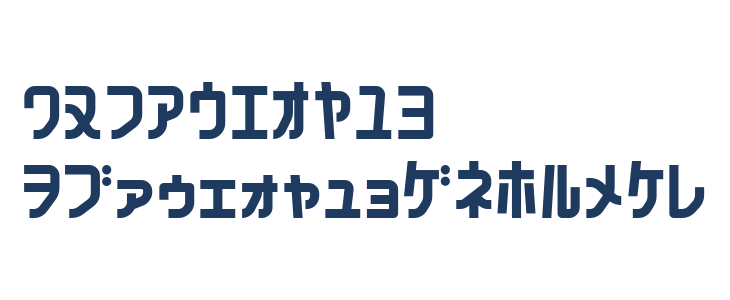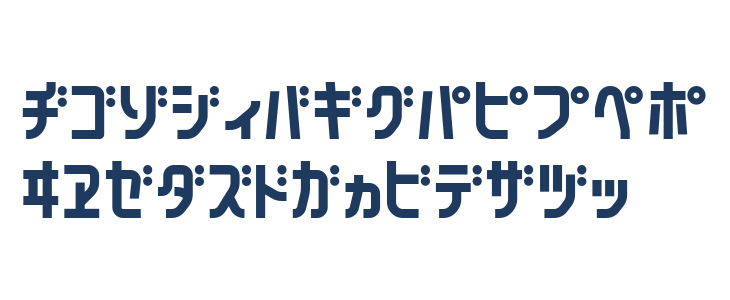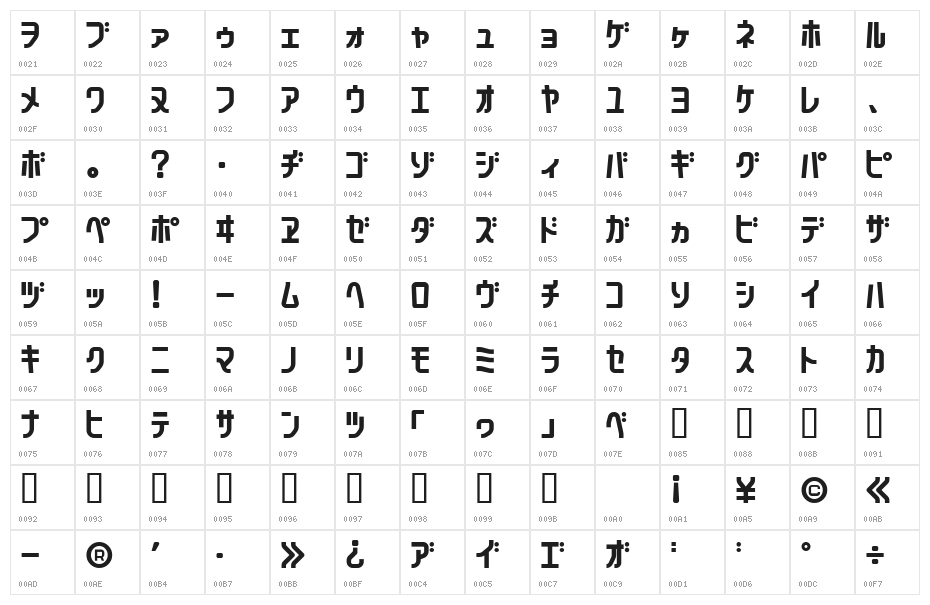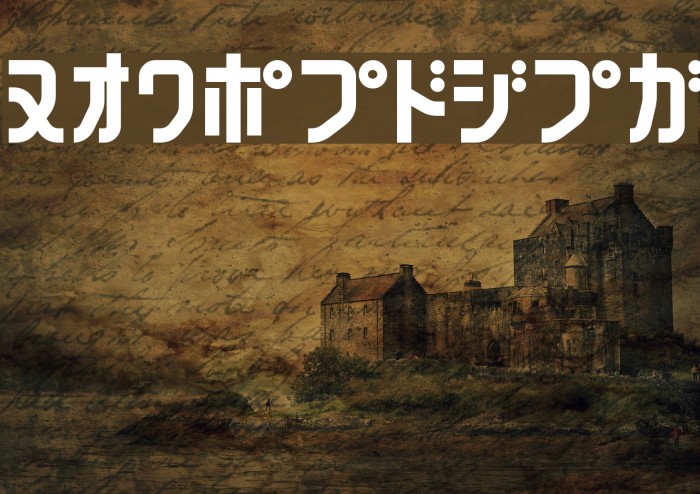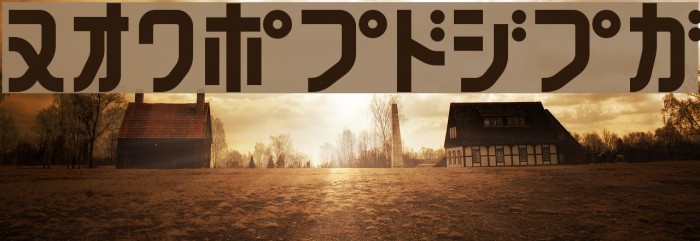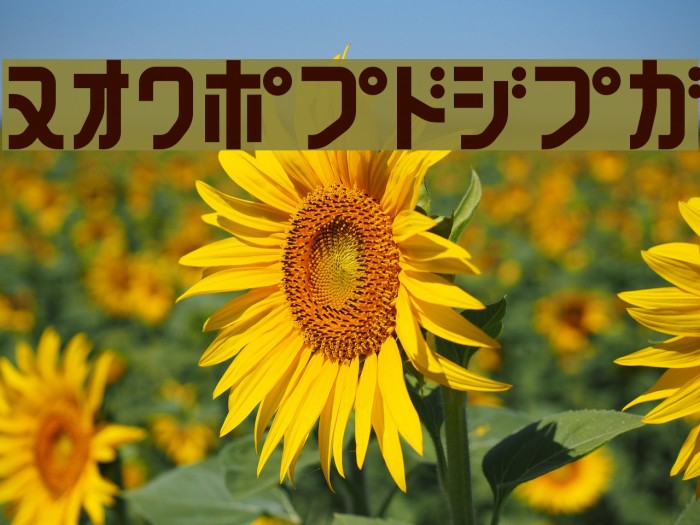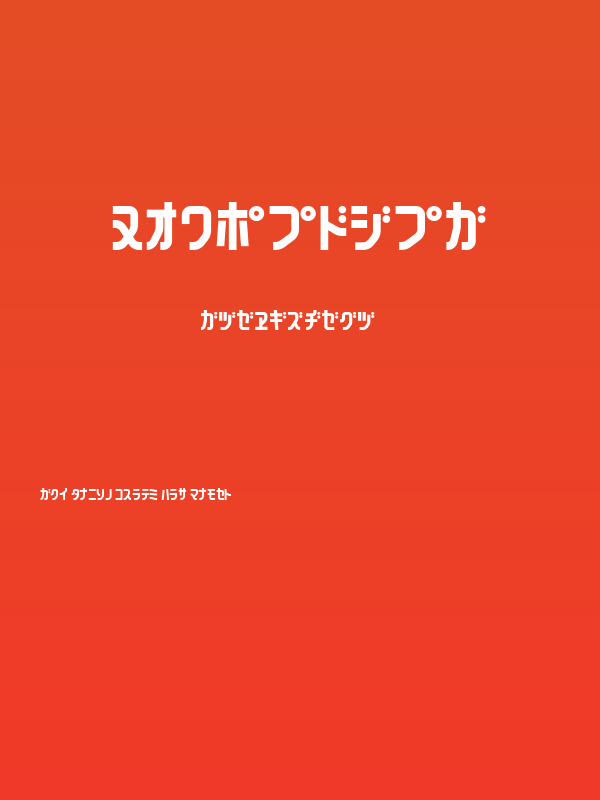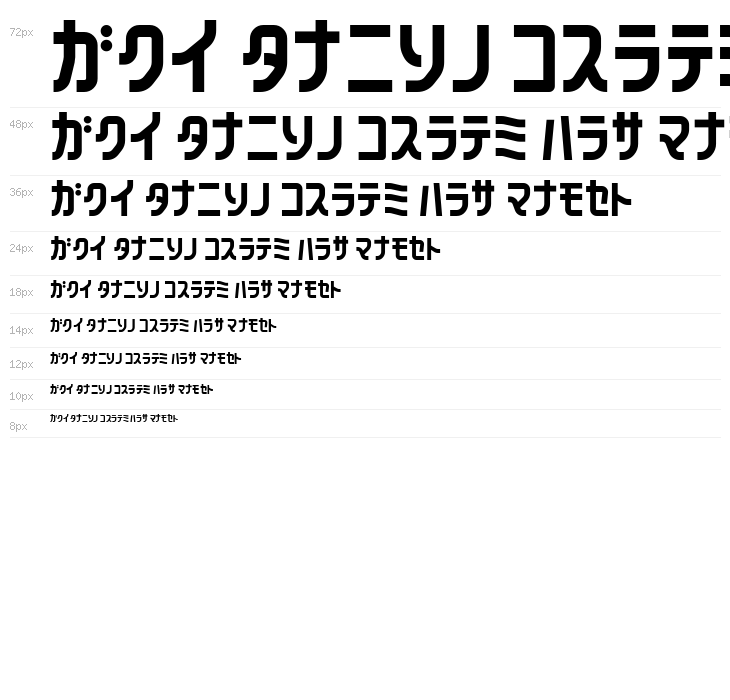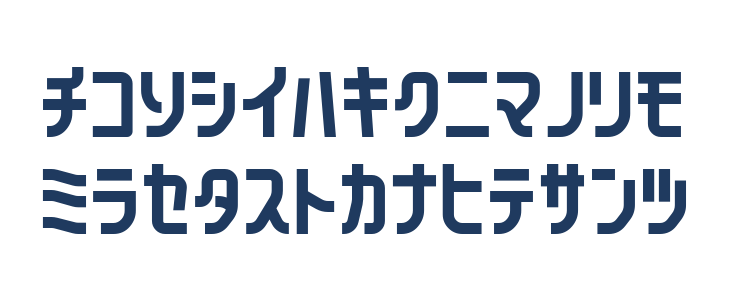
160MKSDKT Font
160MKSDKT Description
This font features bold, geometric characters with a strong presence, ideal for making impactful statements. The characters are uniformly thick, with a consistent stroke width that conveys a sense of stability and modernity. The design is clean and sans-serif, emphasizing clarity and readability. The overall appearance is structured and balanced, making it suitable for various design applications where a bold and confident look is desired.
Proposed ProjectsIdeal for branding, headlines, posters, and signage where a strong visual impact is needed.